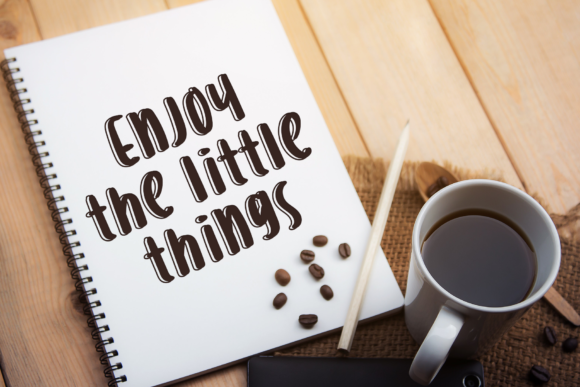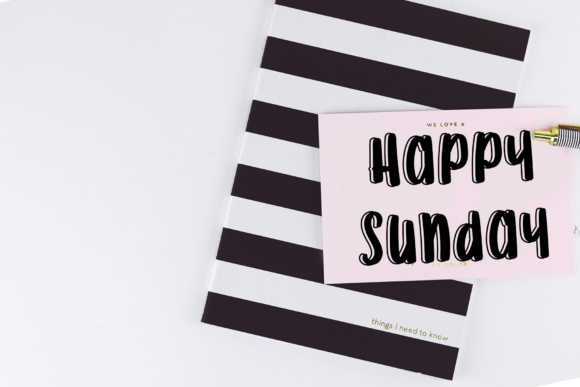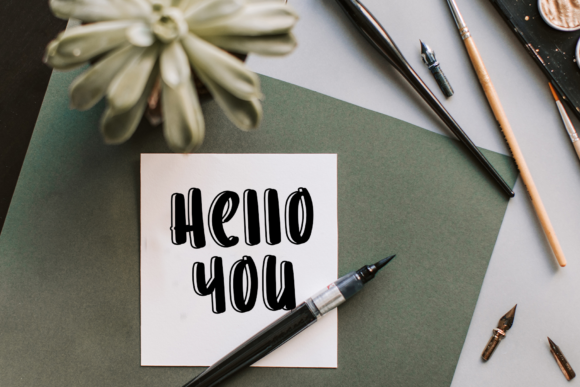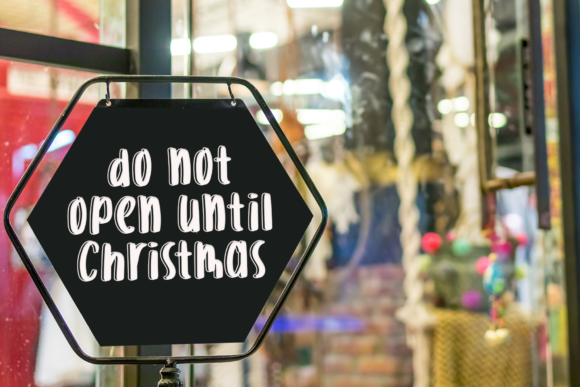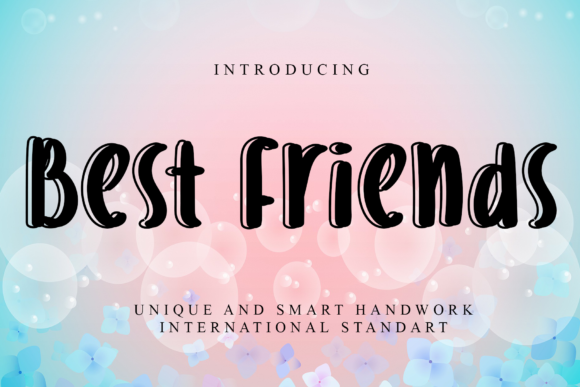
The Perfect Script for Your Special Moments
Have you ever found yourself staring at a blank page, trying to put into words the emotions you feel for someone who’s been by your side through thick and thin? That’s exactly what happened to me when I first laid eyes on the Best Friends Font. Its elegant, handwritten style speaks directly to the heart, making it the perfect script for expressing love, gratitude, and friendship.
As a designer, you’re always on the lookout for the perfect font to elevate your designs. That’s where the Best Friends Font comes in – a bold and beautiful script that’s sure to make your creations stand out. Whether you’re designing wedding invitations, thank-you cards, or logos, this font is a valuable addition to any designer’s toolkit. With its versatility and timeless charm, the Best Friends Font is sure to become your go-to choice for any project that requires a touch of elegance and personality.
Best Friends Font Key Features
- Font Family: Best Friends Font is a sans-serif font family designed specifically for digital use.
- Size Range: The font family includes a range of font sizes, from 8pt to 72pt, to cater to different design needs.
- Resolution: Designed for high-resolution displays, Best Friends Font is optimized for use at 72 dpi, 96 dpi, and 144 dpi.
- Unique Characteristics: The font features a friendly, approachable tone with rounded edges and a subtle italic slant, making it perfect for body text, headings, and titles.
Designer Review: Best Friends Font
As a designer, I was excited to dive into the “Best Friends Font” and see how it stacks up. Overall, I’d say it’s a cute and playful font that’s perfect for social media graphics, children’s books, or any project where you want to convey a sense of fun and friendship.
- Cute and playful letterforms that are sure to put a smile on your face
- Perfect for social media graphics, posters, and other digital designs
- Works well in bold and italic styles to add emphasis and interest
- Includes a variety of ligatures and swashes to add a touch of personality
- May not be the best choice for formal or professional projects
- Some letterforms can be a bit tricky to read at smaller sizes
- Lack of bold weights may limit its use in certain design contexts
I’d give the “Best Friends Font” 4 out of 5 stars. While it’s not perfect, it’s a fun and playful font that’s sure to bring a smile to your face. With a bit of careful planning and use, it can be a great addition to any design project.
The Best Friends Font is a playful and cursive font that is perfect for creating friendly and approachable designs. Some common use cases include:
- Social media posts and updates
- Invitations and party decorations
- Blog posts and articles with a friendly tone